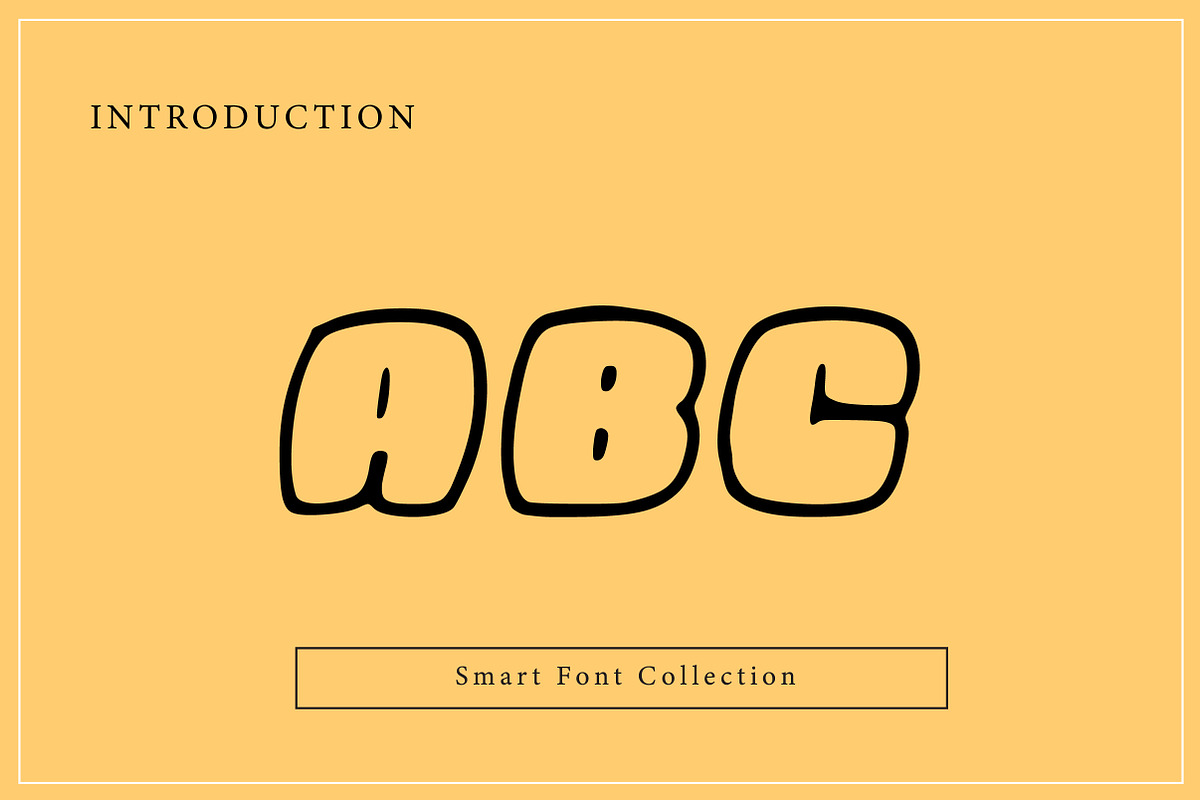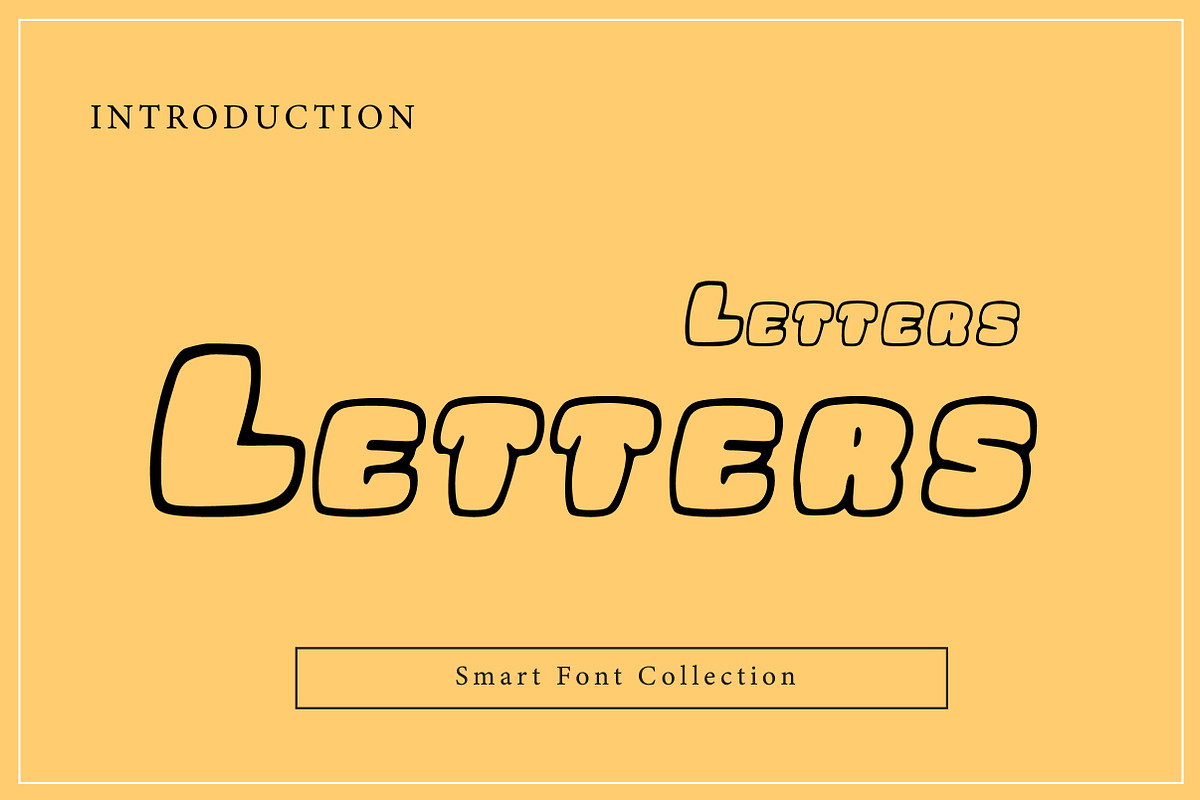
Letters
Letters is a clean, playful, and friendly outline-style display font designed with soft rounded shapes and a handwritten feel. Featuring smooth bubble-like letterforms with an airy outline look, this font is perfect for kids projects, logos, posters, stickers, social media graphics, packaging, school designs, and creative headlines. Letters delivers a cute and modern vibe with easy readability, making it ideal for fun typography, doodle-style branding, and cheerful design layouts.